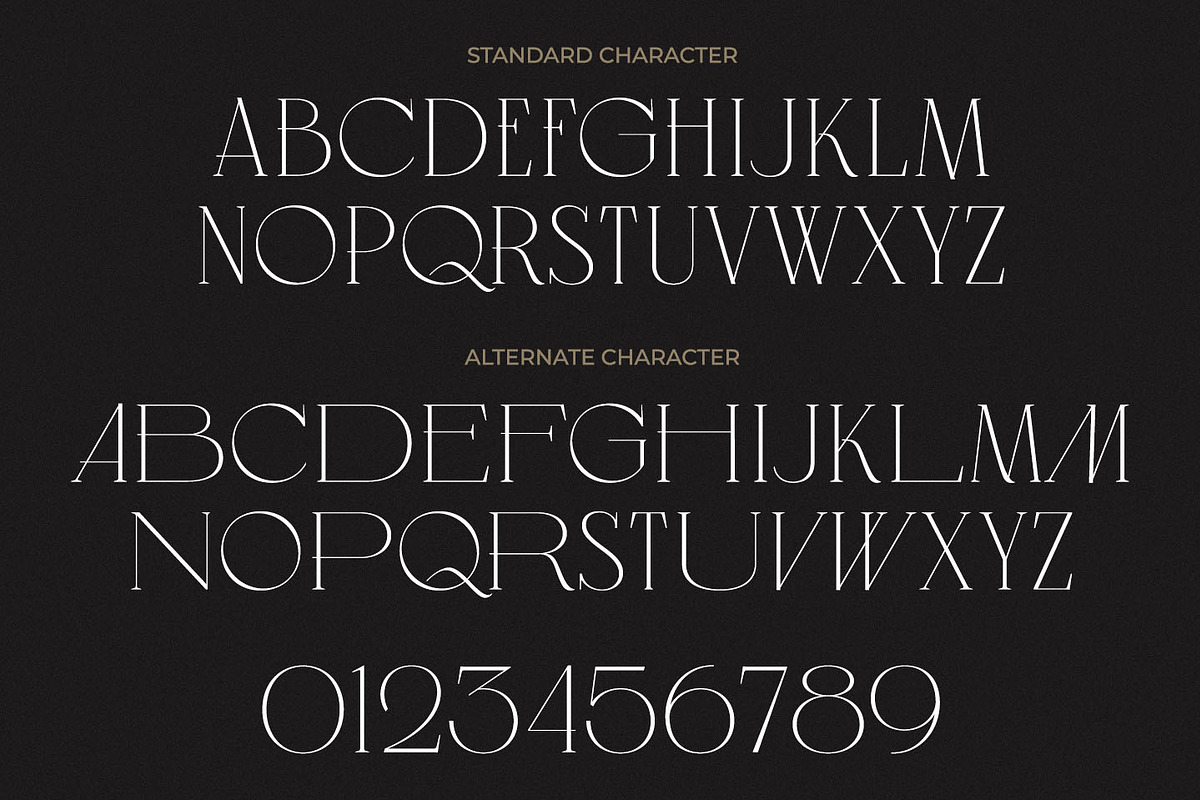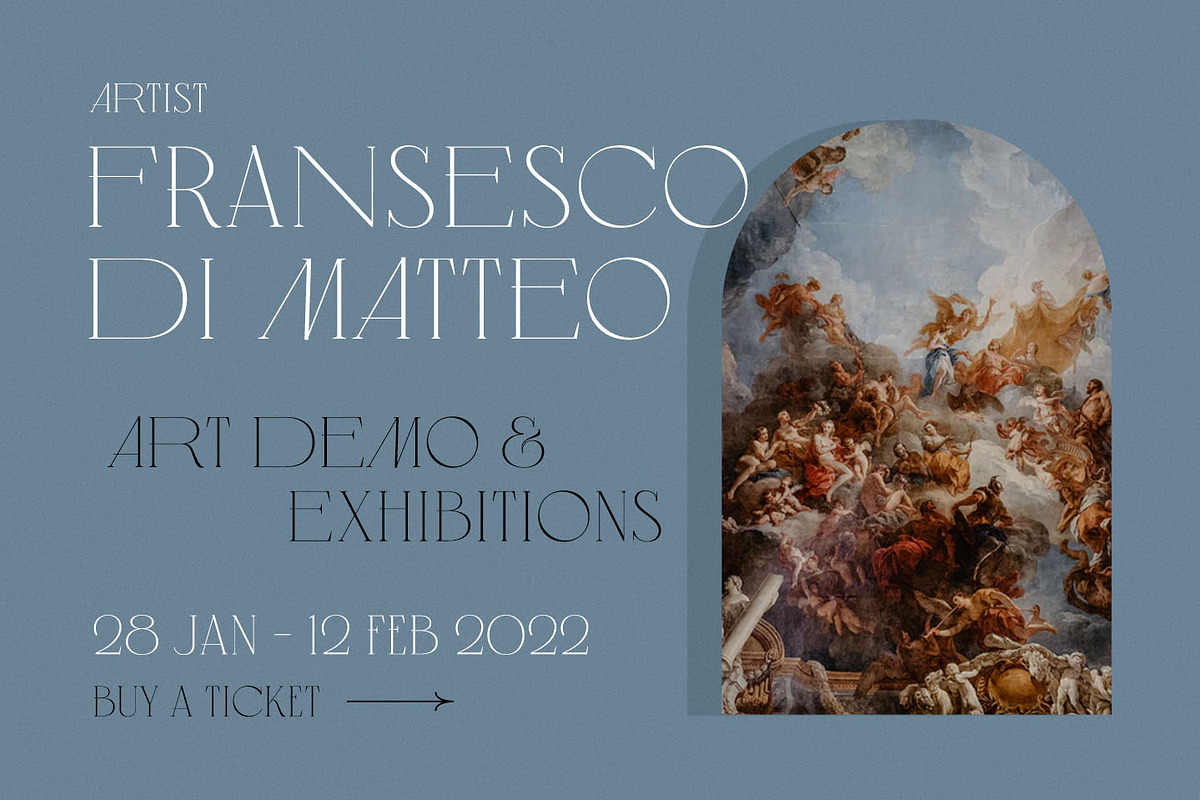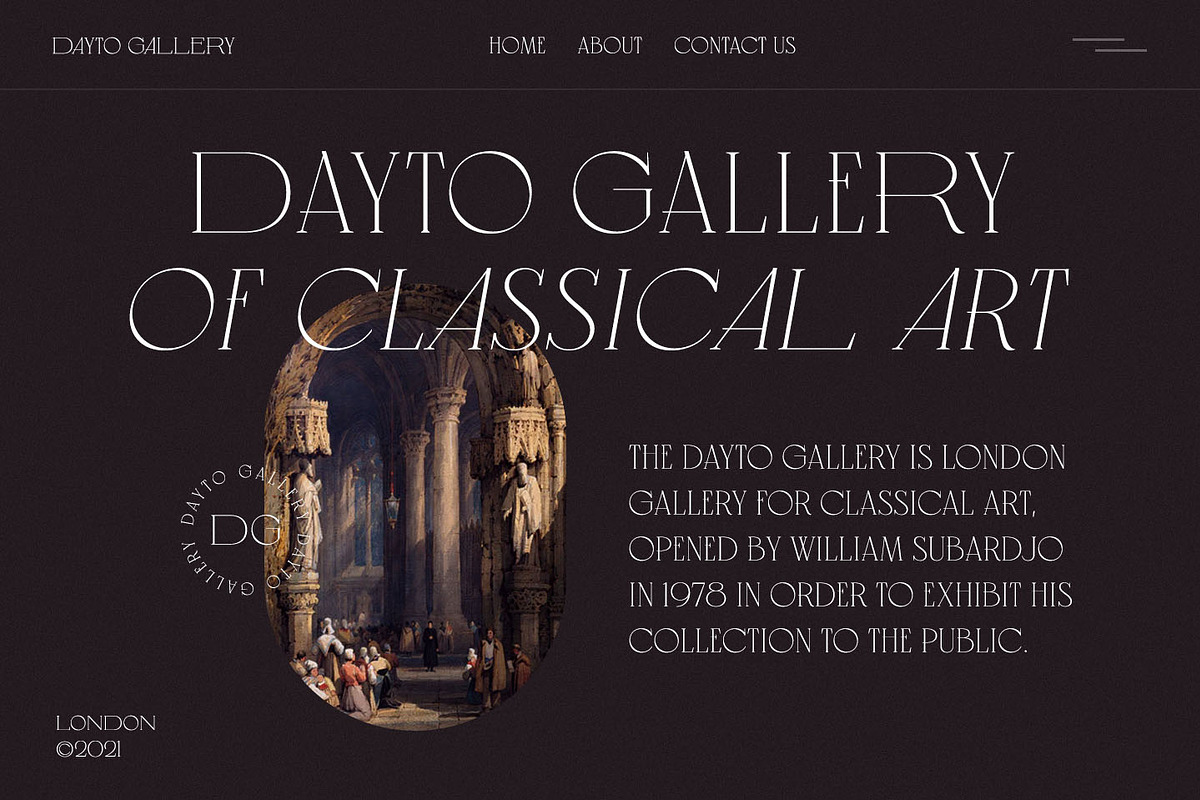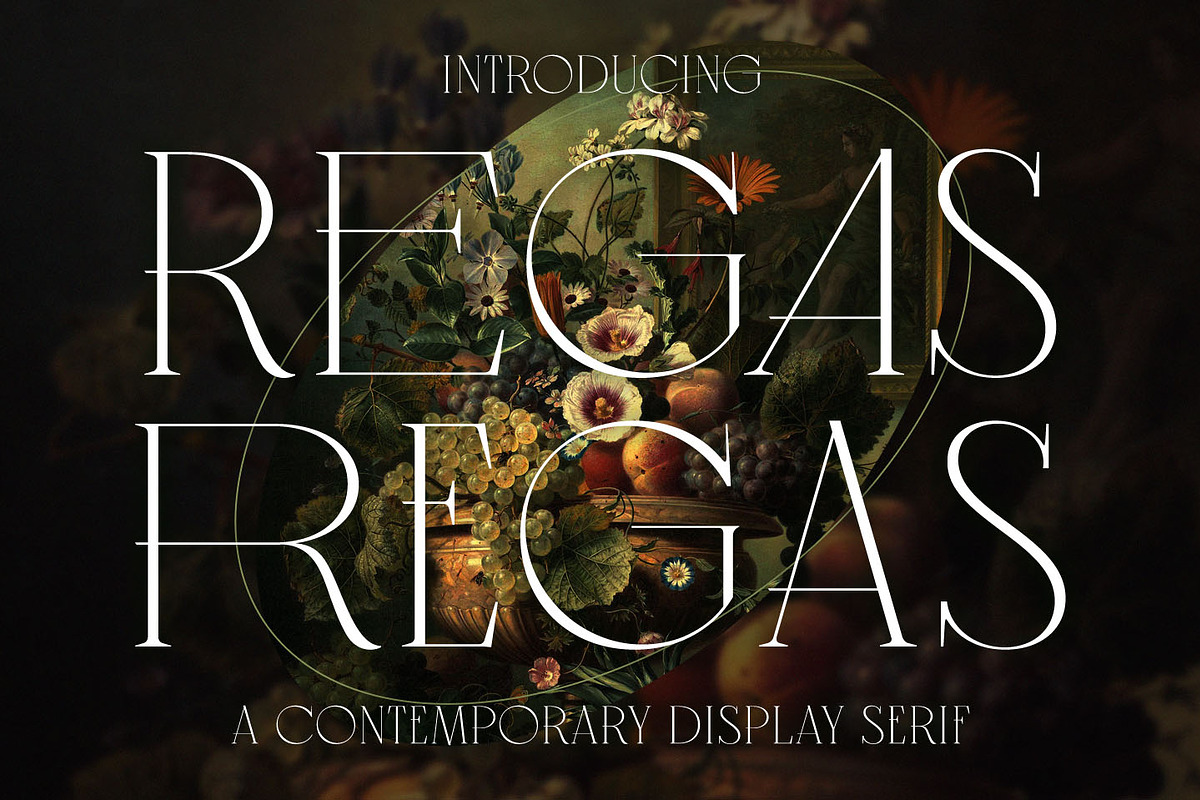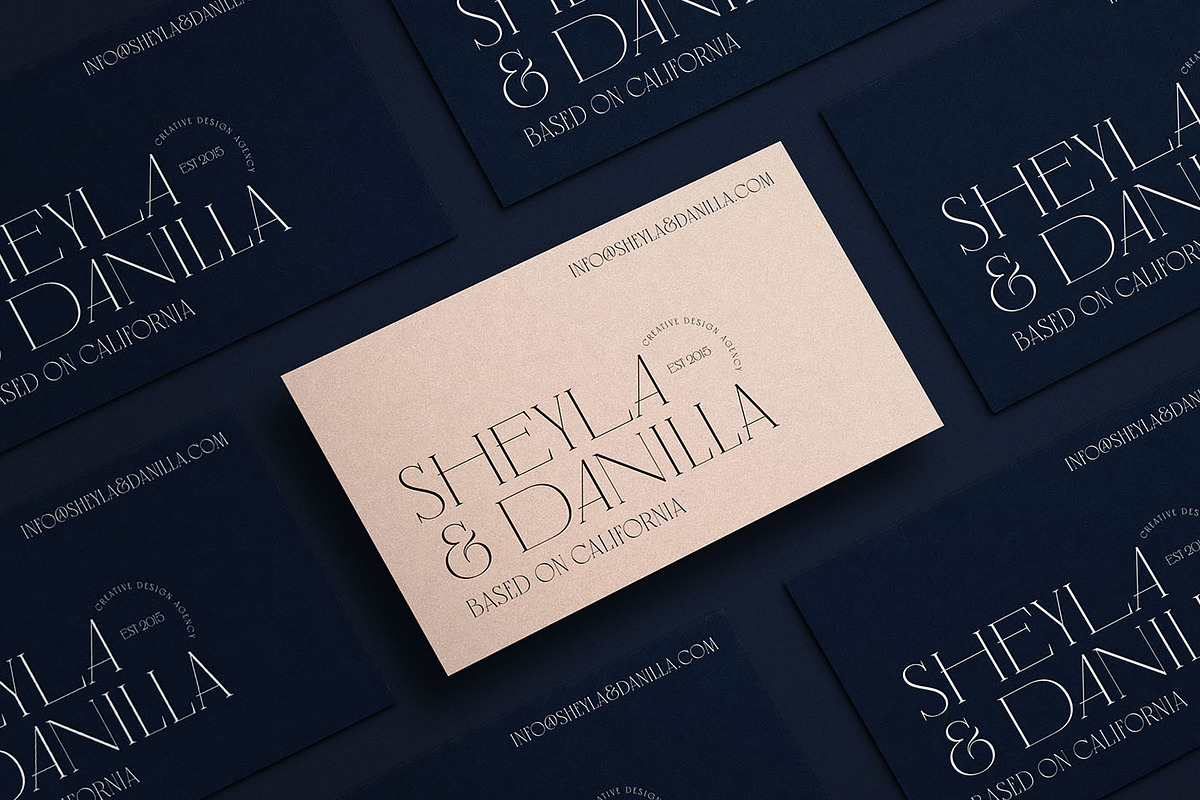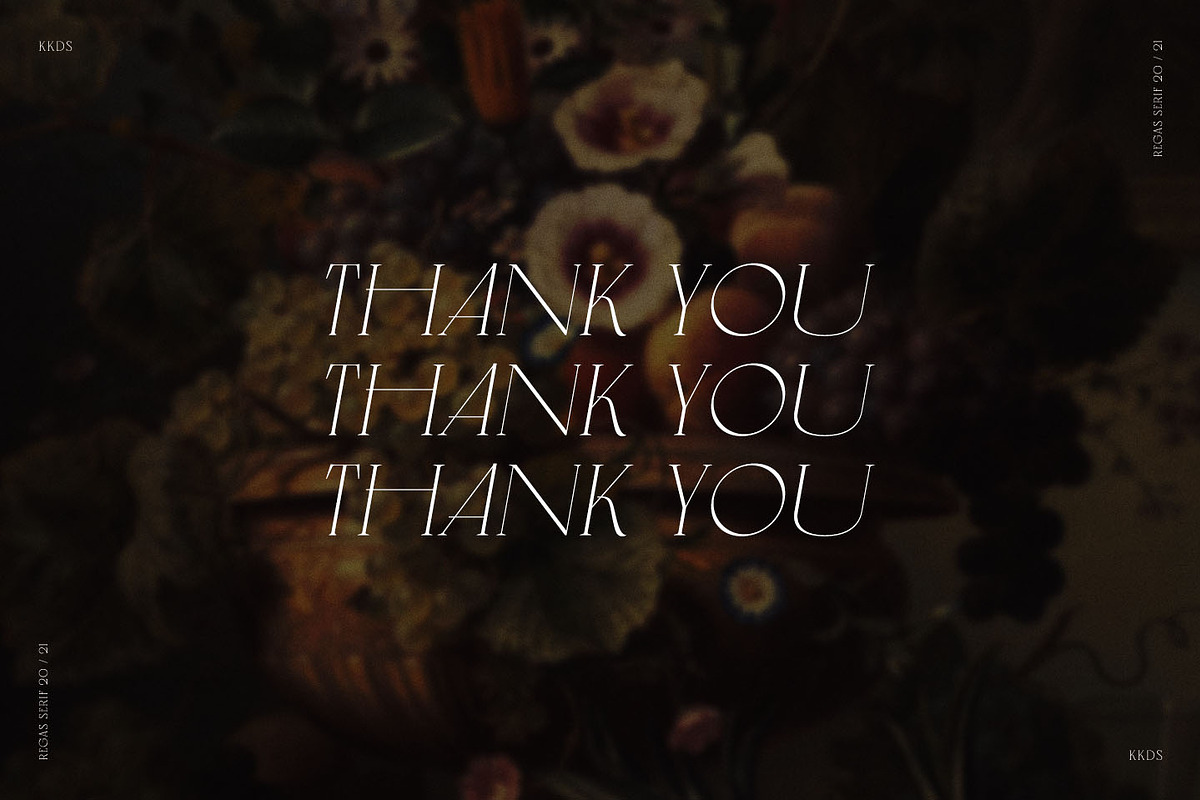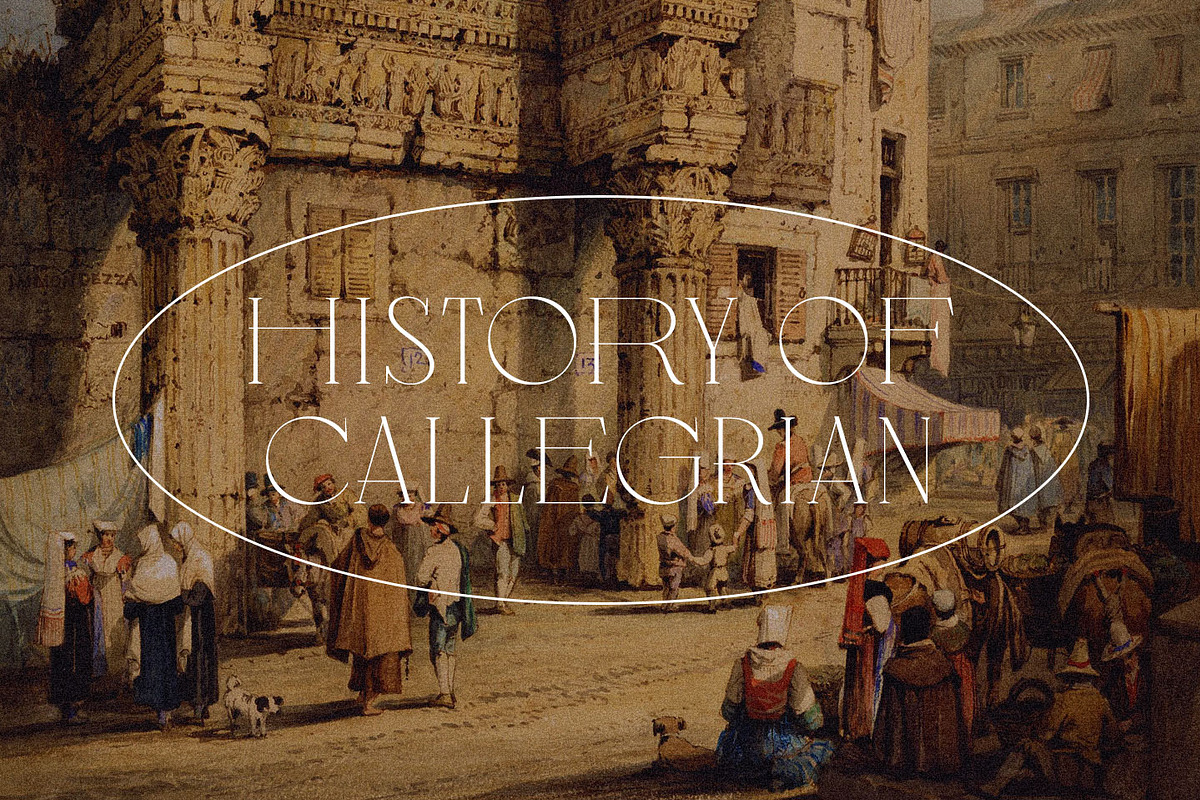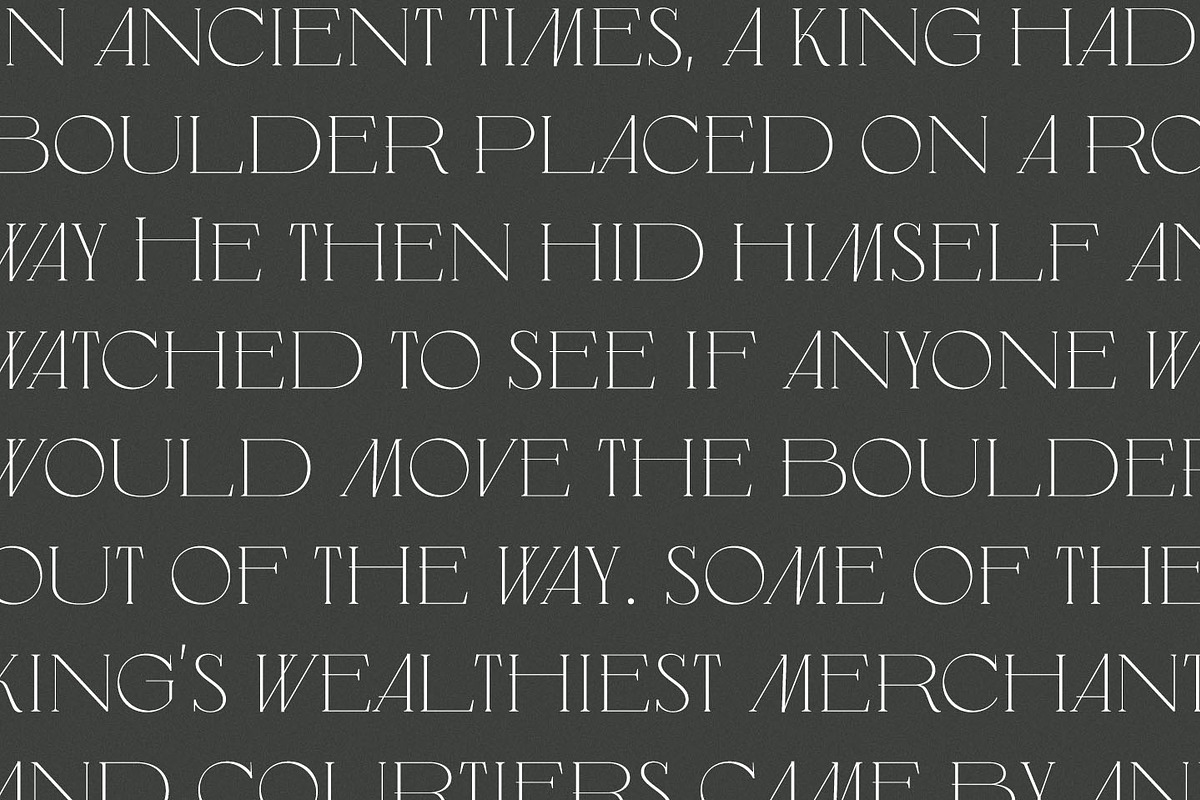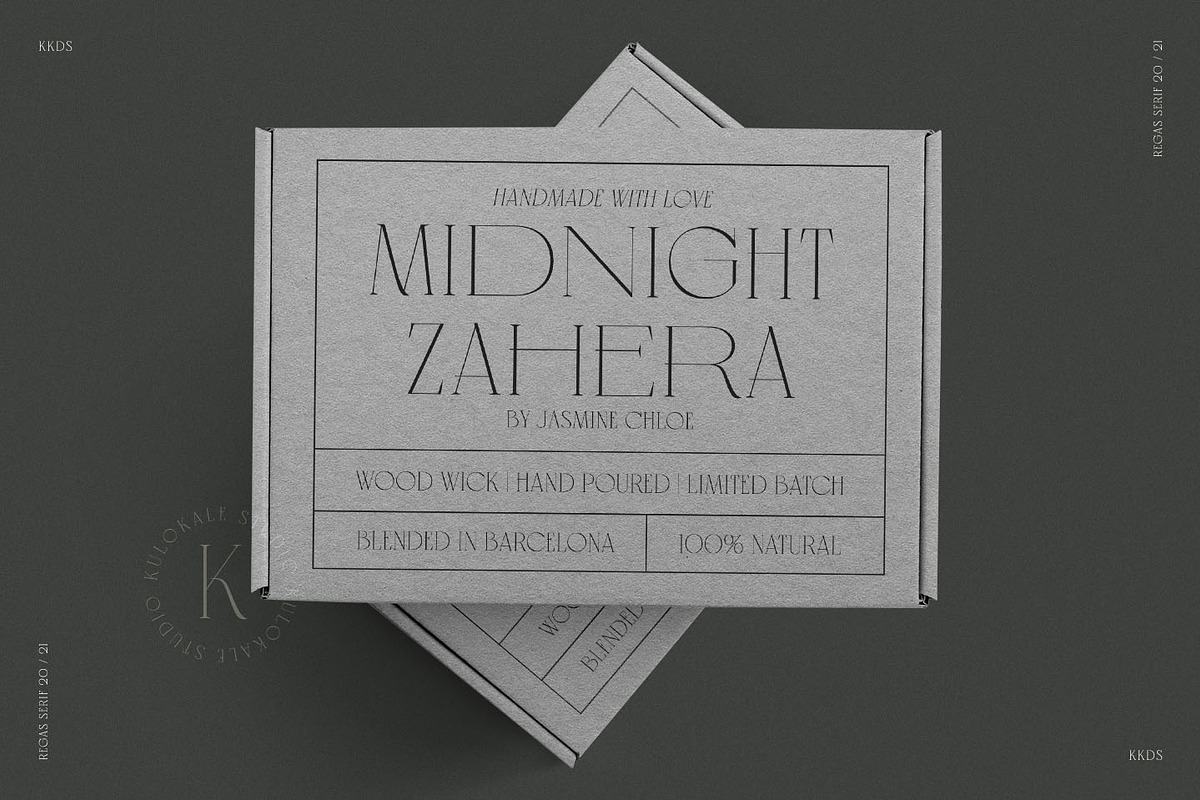
Regas Classic Display Serif Font
Regas is a contemporary and classic display serif font. Regas is well-suited for advertising, branding, logotypes, packaging, titles, headlines and editorial design. This font comes in two styles, Regular and Oblique Version.